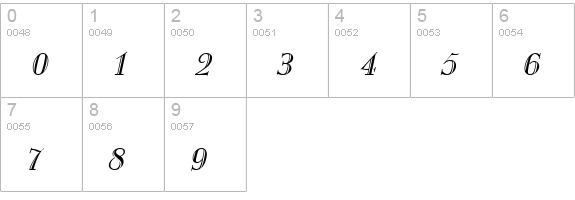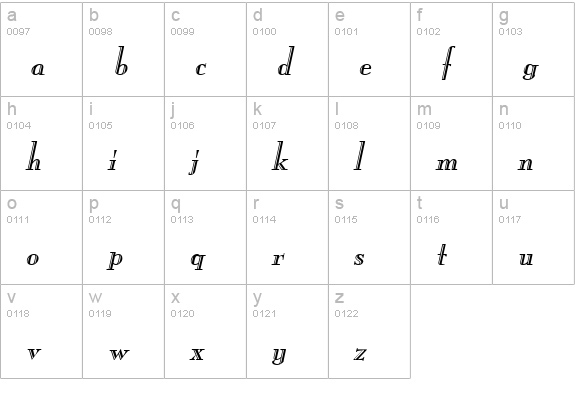
MonarchEngraved Italic Font Details
MonarchEngraved Italic is a distinctive, italic variant in the MonarchEngraved typeface family \xE2\x80\x94 well suited to design and typography projects.
MonarchEngraved Italic font exudes elegance and sophistication with its intricate details and refined design. The italic style adds a touch of flair and grace to any project, making it a perfect choice for adding a touch of luxury to invitations, branding, or editorial designs. The delicate serifs and flowing lines of MonarchEngraved Italic create a timeless and classic feel that is both striking and versatile. And the best part? MonarchEngraved Italic font is available for free download at FontsMarket.com! This means you can easily access this exquisite font and elevate your designs without any cost. Don't miss out on this opportunity to enhance your projects with the beauty and charm of MonarchEngraved Italic font. Download it now and add a touch of sophistication to your creations.